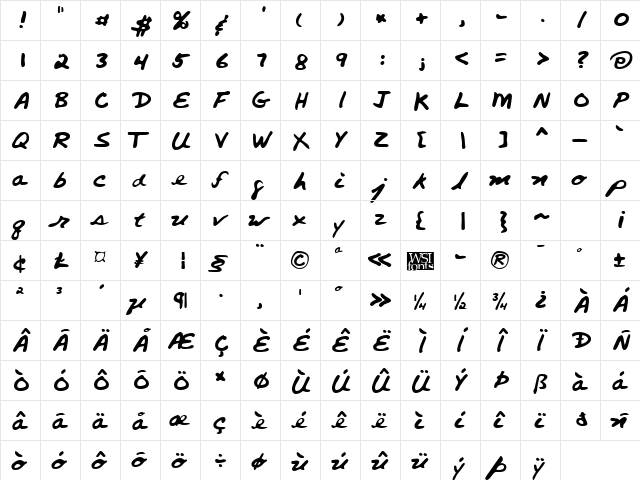
SergesHand Regular Font Preview
SergesHand Regular
SergesHand Regular Font Details
Design Context for SergesHand Typeface
SergesHand flows with the natural rhythm of handwritten lettering, making it ideal for designs that call for warmth and personal expression.